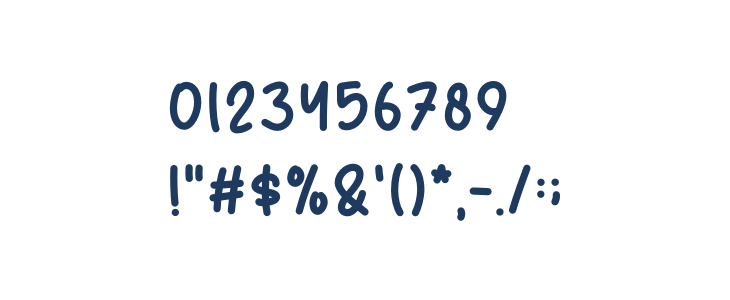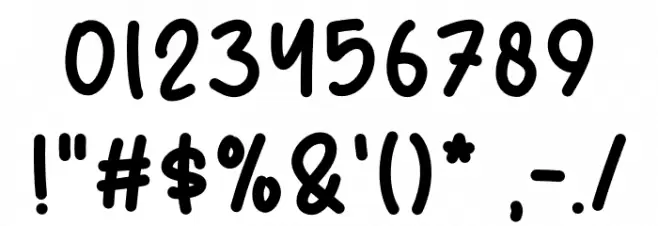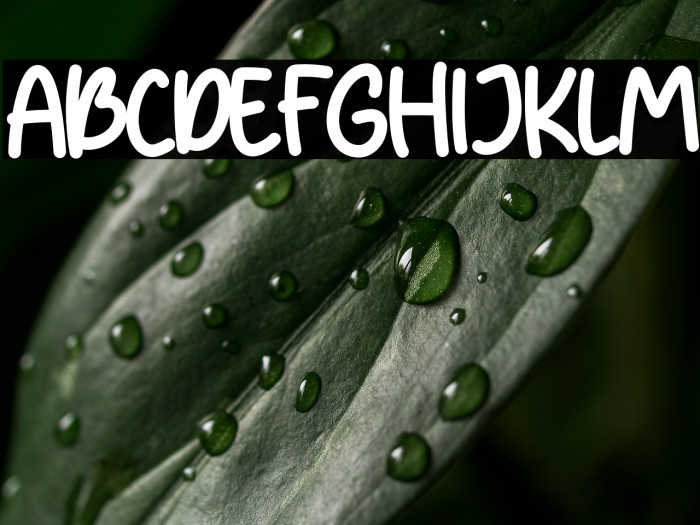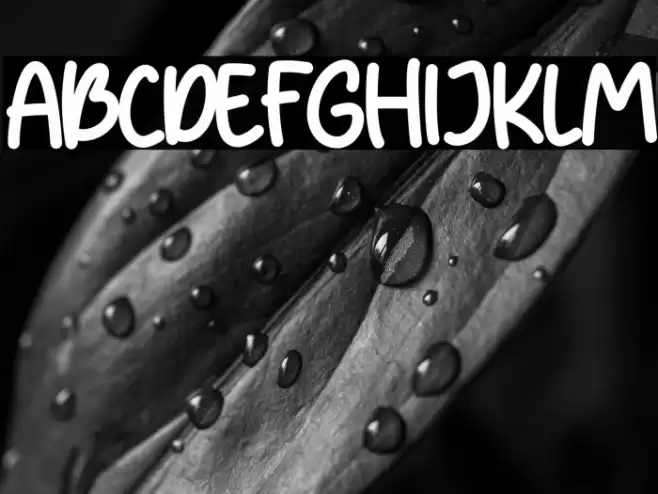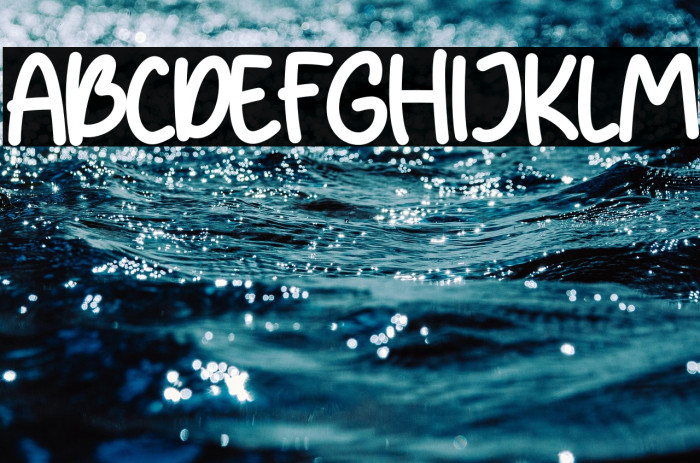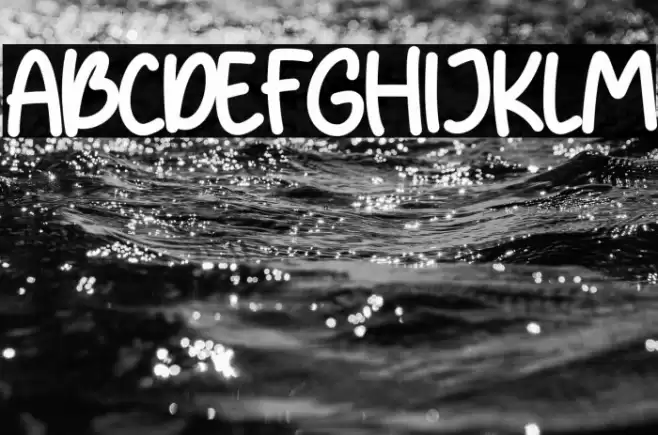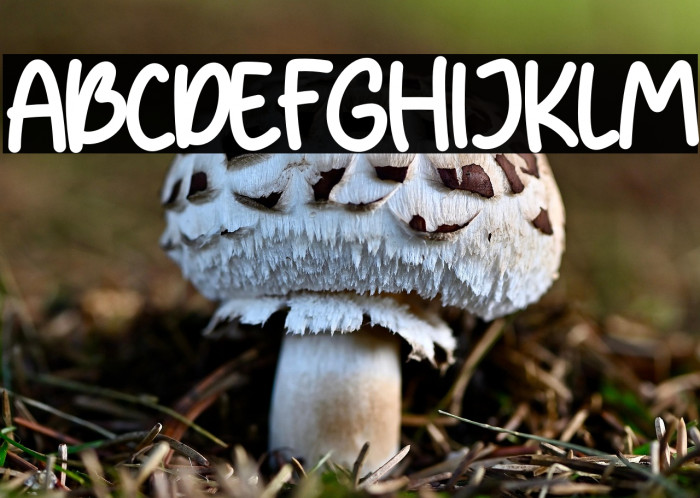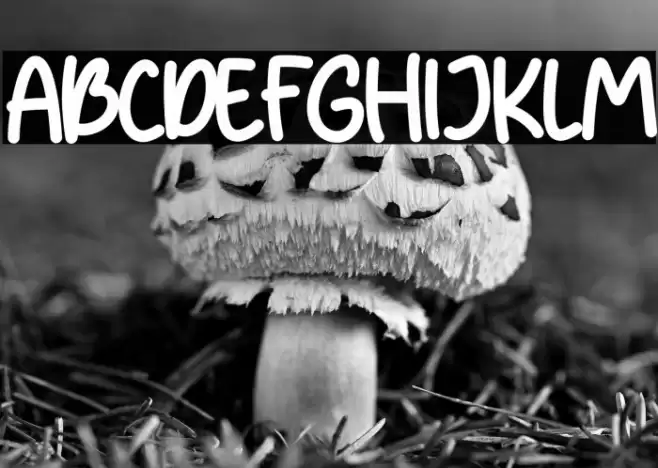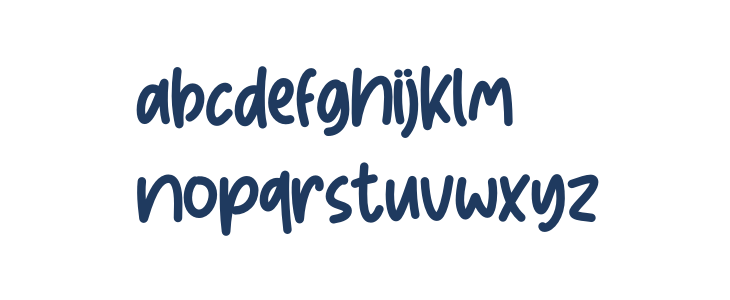
Pumpkin Patch Font
Pumpkin Patch Description
This playful and whimsical font features a handwritten style with bold, rounded characters. The letters are slightly irregular, giving it a casual and friendly appearance. The uppercase and lowercase letters maintain a consistent style, with smooth curves and a slightly bouncy baseline. Numbers and special characters are included, matching the overall playful aesthetic. This font is perfect for projects that require a fun and approachable look, such as children's books, party invitations, or playful branding.
| Proposed Projects | Ideal for children's books, party invitations, playful branding, and casual greeting cards. |